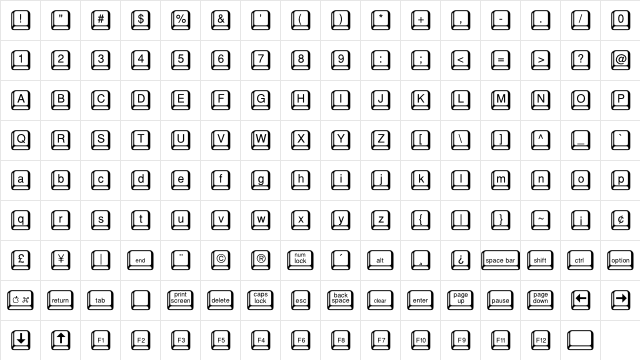
Keyclick Regular
Design Context for Keyclick Typeface
Keyclick is a composed and adaptable typeface that performs quietly and consistently across a wide range of design contexts.